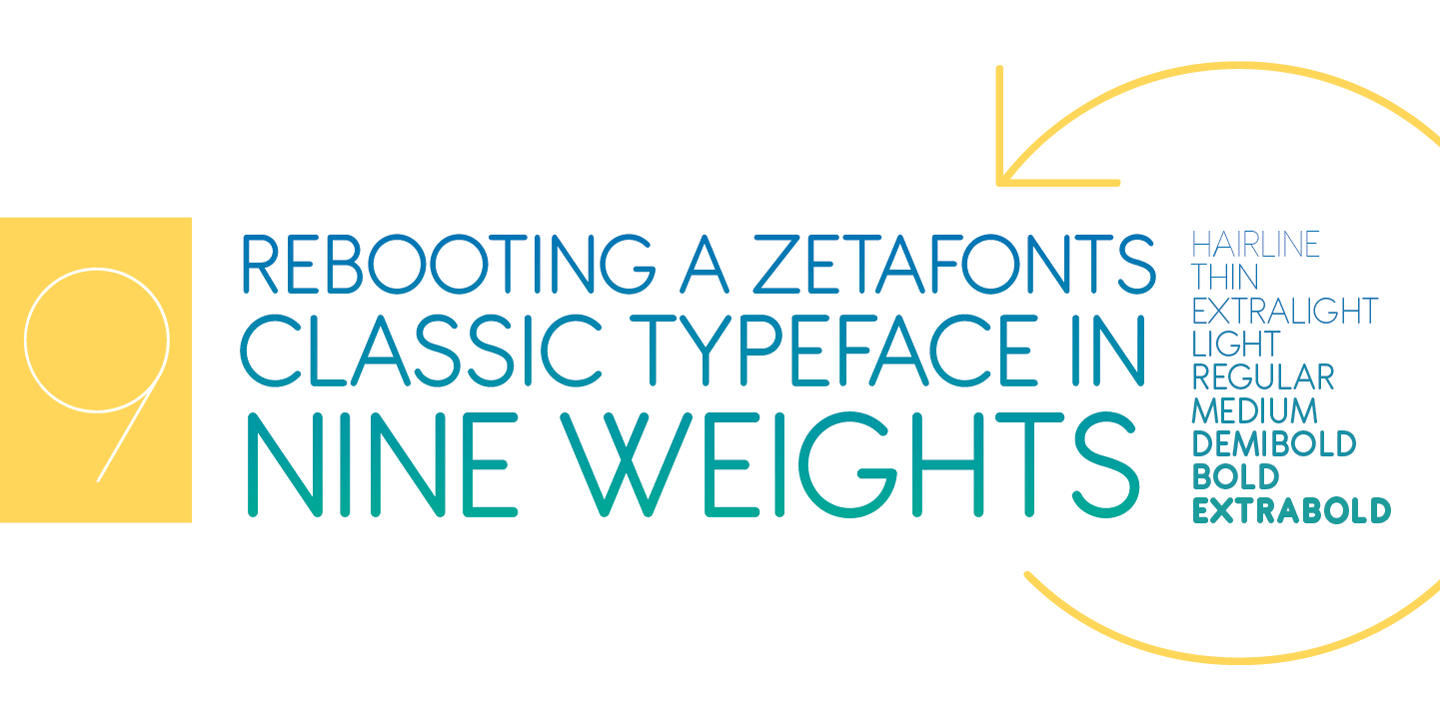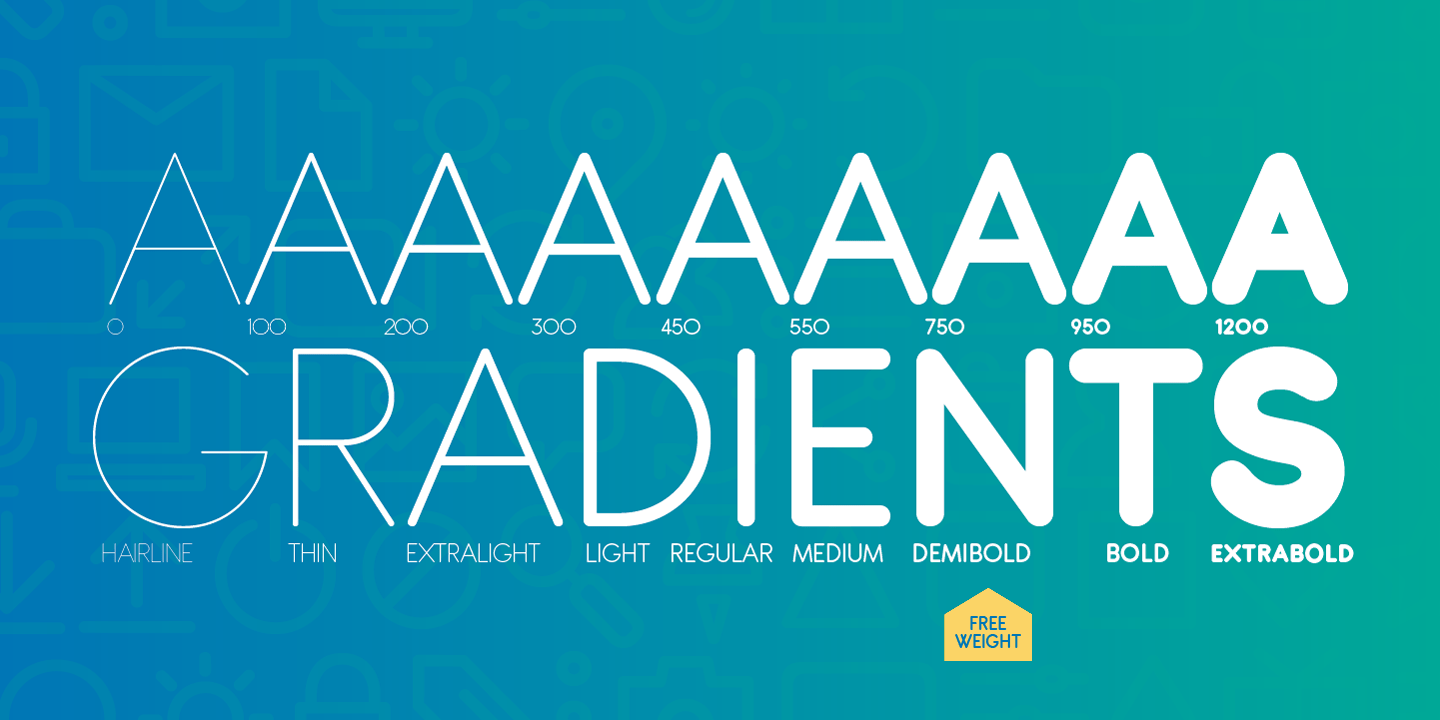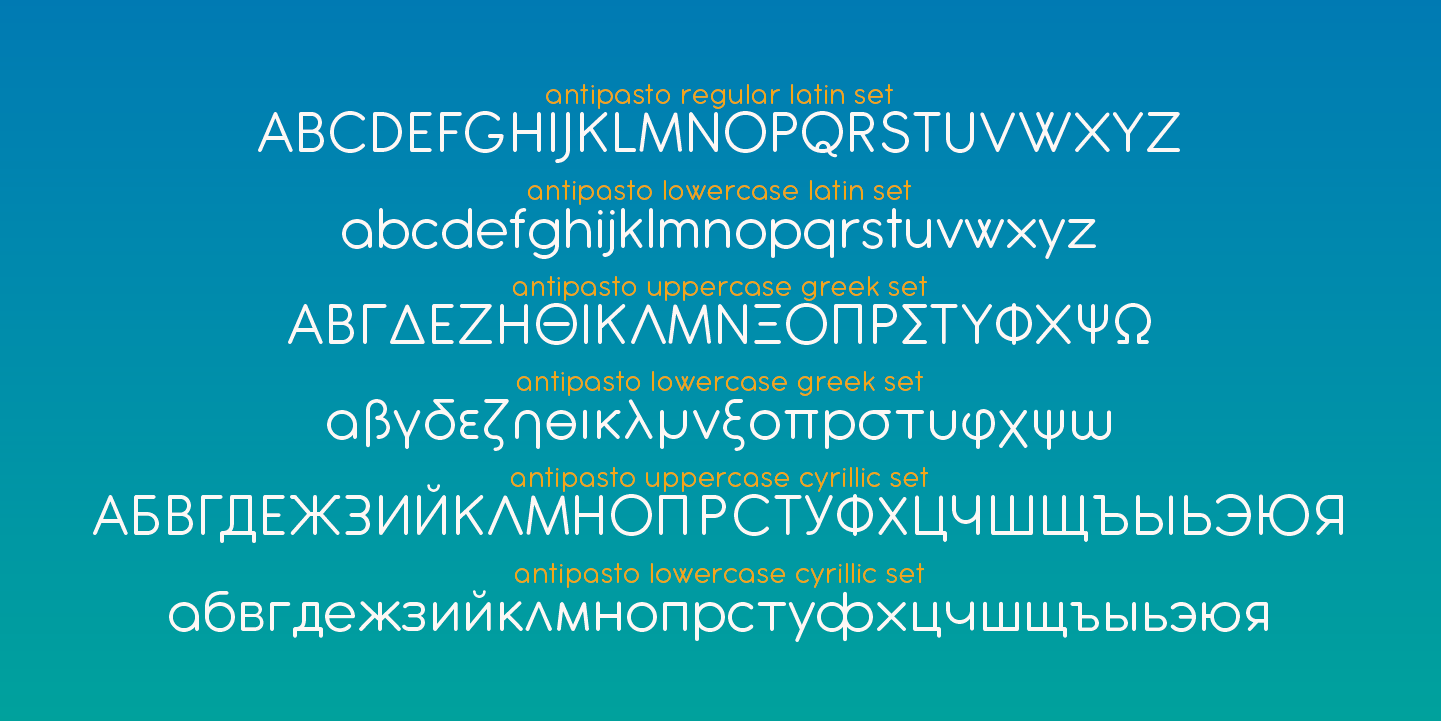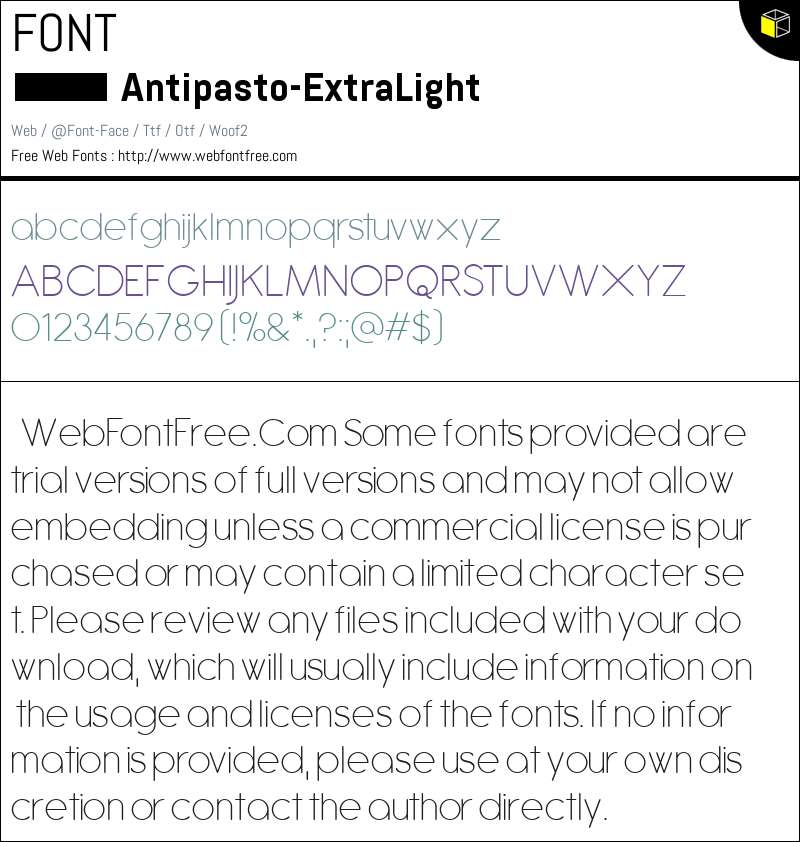
Descargar Antipasto Font . Download and install the antipasto free font. Antipasto is a geometric sans serif font designed by cosimo lorenzo pancini. The original family of three weights has been revised and expanded in 2017 with antipasto pro that now. The antipasto font has been downloaded 33,949 times. Download and install the antipasto font by zetafonts. Download antipasto pro font family · free for personal use · this trial font is totally free for noncommercial uses. Antipasto pro is geometric sans serif font created by cosimo lorenzo pancini. Antipasto is a geometric sans serif font designed by cosimo lorenzo pancini. The original family of three weights has been. The initial family of three weights was redesigned. Antipasto se descargó 33,906 veces.
Download and install the antipasto font by zetafonts. Antipasto is a geometric sans serif font designed by cosimo lorenzo pancini. Antipasto is a geometric sans serif font designed by cosimo lorenzo pancini. Download antipasto pro font family · free for personal use · this trial font is totally free for noncommercial uses. The original family of three weights has been revised and expanded in 2017 with antipasto pro that now. The initial family of three weights was redesigned. The original family of three weights has been. The antipasto font has been downloaded 33,949 times. Download and install the antipasto free font. Antipasto se descargó 33,906 veces.
Descargar Antipasto Font The original family of three weights has been revised and expanded in 2017 with antipasto pro that now. The antipasto font has been downloaded 33,949 times. Download and install the antipasto free font. Antipasto pro is geometric sans serif font created by cosimo lorenzo pancini. Download antipasto pro font family · free for personal use · this trial font is totally free for noncommercial uses. Antipasto is a geometric sans serif font designed by cosimo lorenzo pancini. The initial family of three weights was redesigned. The original family of three weights has been. Antipasto se descargó 33,906 veces. Antipasto is a geometric sans serif font designed by cosimo lorenzo pancini. Download and install the antipasto font by zetafonts. The original family of three weights has been revised and expanded in 2017 with antipasto pro that now.
Antipasto Pro font Descargar Antipasto Font The original family of three weights has been revised and expanded in 2017 with antipasto pro that now. The initial family of three weights was redesigned. Antipasto pro is geometric sans serif font created by cosimo lorenzo pancini. Antipasto is a geometric sans serif font designed by cosimo lorenzo pancini. Antipasto is a geometric sans serif font designed by cosimo. Descargar Antipasto Font.
Antipasto Pro font download Descargar Antipasto Font Download antipasto pro font family · free for personal use · this trial font is totally free for noncommercial uses. The original family of three weights has been. Antipasto is a geometric sans serif font designed by cosimo lorenzo pancini. The antipasto font has been downloaded 33,949 times. The initial family of three weights was redesigned. Antipasto pro is geometric. Descargar Antipasto Font.
Antipasto Font Free Download Descargar Antipasto Font The initial family of three weights was redesigned. The antipasto font has been downloaded 33,949 times. The original family of three weights has been revised and expanded in 2017 with antipasto pro that now. Antipasto is a geometric sans serif font designed by cosimo lorenzo pancini. Antipasto is a geometric sans serif font designed by cosimo lorenzo pancini. The original. Descargar Antipasto Font.
Antipasto Pro Font Free Download Descargar Antipasto Font The antipasto font has been downloaded 33,949 times. Antipasto is a geometric sans serif font designed by cosimo lorenzo pancini. Download and install the antipasto font by zetafonts. The original family of three weights has been revised and expanded in 2017 with antipasto pro that now. Download antipasto pro font family · free for personal use · this trial font. Descargar Antipasto Font.
Antipasto Font Free Download Descargar Antipasto Font The antipasto font has been downloaded 33,949 times. The initial family of three weights was redesigned. Antipasto is a geometric sans serif font designed by cosimo lorenzo pancini. Antipasto se descargó 33,906 veces. Download and install the antipasto free font. The original family of three weights has been revised and expanded in 2017 with antipasto pro that now. Download and. Descargar Antipasto Font.
Antipasto Font Descargar Antipasto Font Antipasto pro is geometric sans serif font created by cosimo lorenzo pancini. Antipasto se descargó 33,906 veces. The antipasto font has been downloaded 33,949 times. Antipasto is a geometric sans serif font designed by cosimo lorenzo pancini. Antipasto is a geometric sans serif font designed by cosimo lorenzo pancini. The initial family of three weights was redesigned. Download antipasto pro. Descargar Antipasto Font.
Antipasto ExtraLight free Font What Font Is Descargar Antipasto Font Antipasto se descargó 33,906 veces. The original family of three weights has been. The initial family of three weights was redesigned. Antipasto is a geometric sans serif font designed by cosimo lorenzo pancini. Download antipasto pro font family · free for personal use · this trial font is totally free for noncommercial uses. Download and install the antipasto font by. Descargar Antipasto Font.
Font Antipasto Pro descargar e instalar en el WEB sitio Descargar Antipasto Font Antipasto is a geometric sans serif font designed by cosimo lorenzo pancini. The original family of three weights has been revised and expanded in 2017 with antipasto pro that now. Antipasto pro is geometric sans serif font created by cosimo lorenzo pancini. The antipasto font has been downloaded 33,949 times. Antipasto is a geometric sans serif font designed by cosimo. Descargar Antipasto Font.
Antipasto Font Free Download Descargar Antipasto Font Download and install the antipasto font by zetafonts. Antipasto pro is geometric sans serif font created by cosimo lorenzo pancini. Download and install the antipasto free font. The original family of three weights has been revised and expanded in 2017 with antipasto pro that now. Antipasto is a geometric sans serif font designed by cosimo lorenzo pancini. The antipasto font. Descargar Antipasto Font.